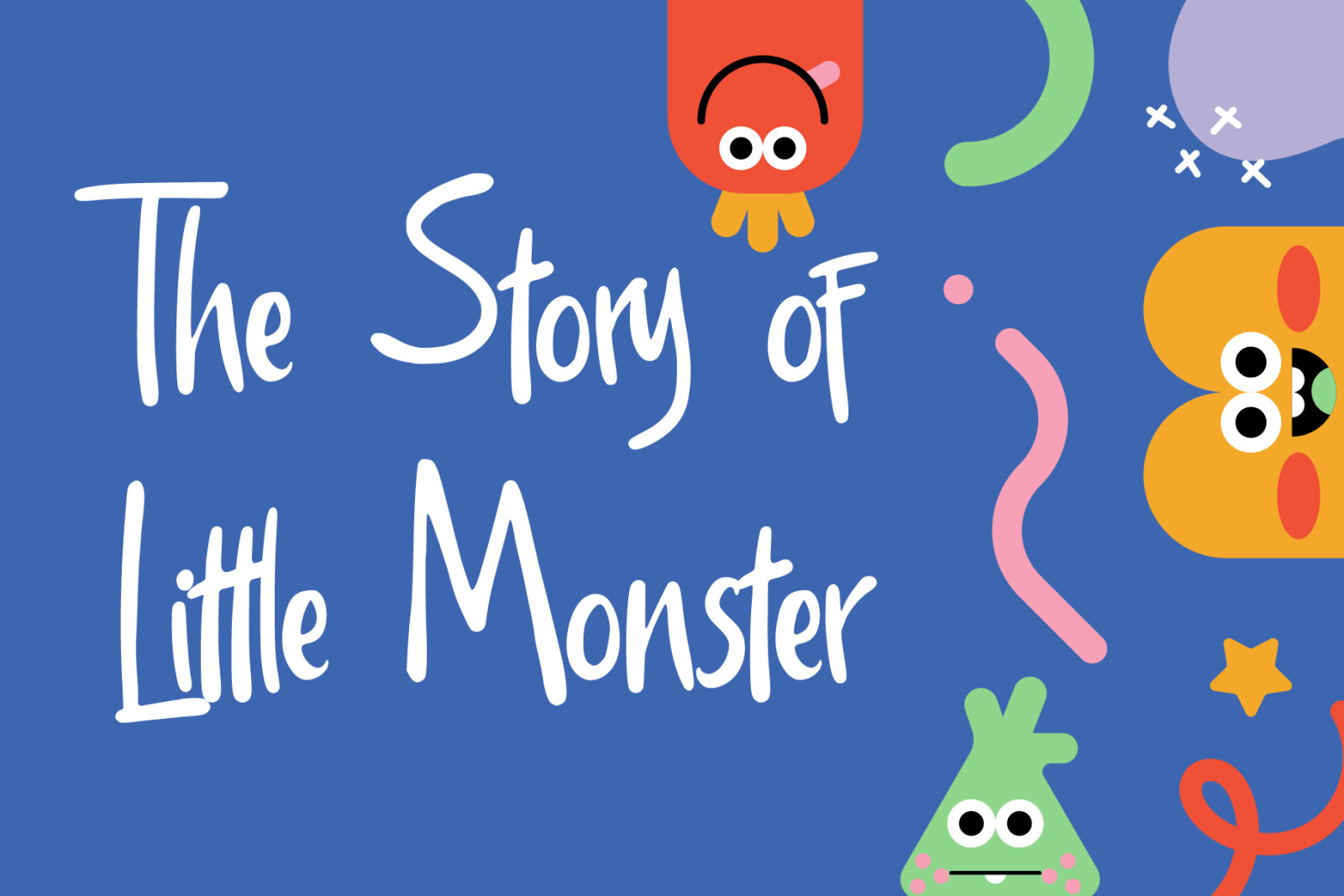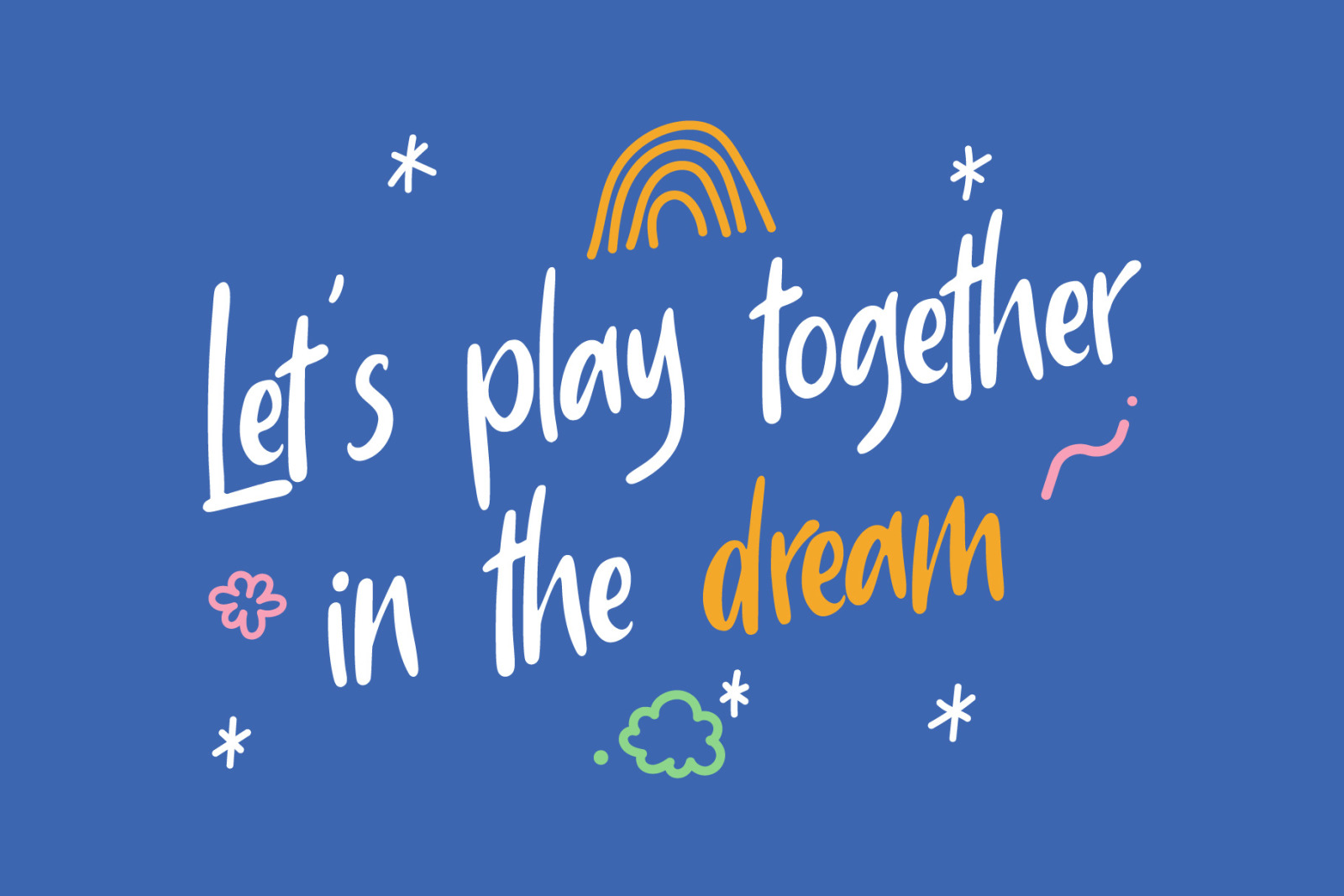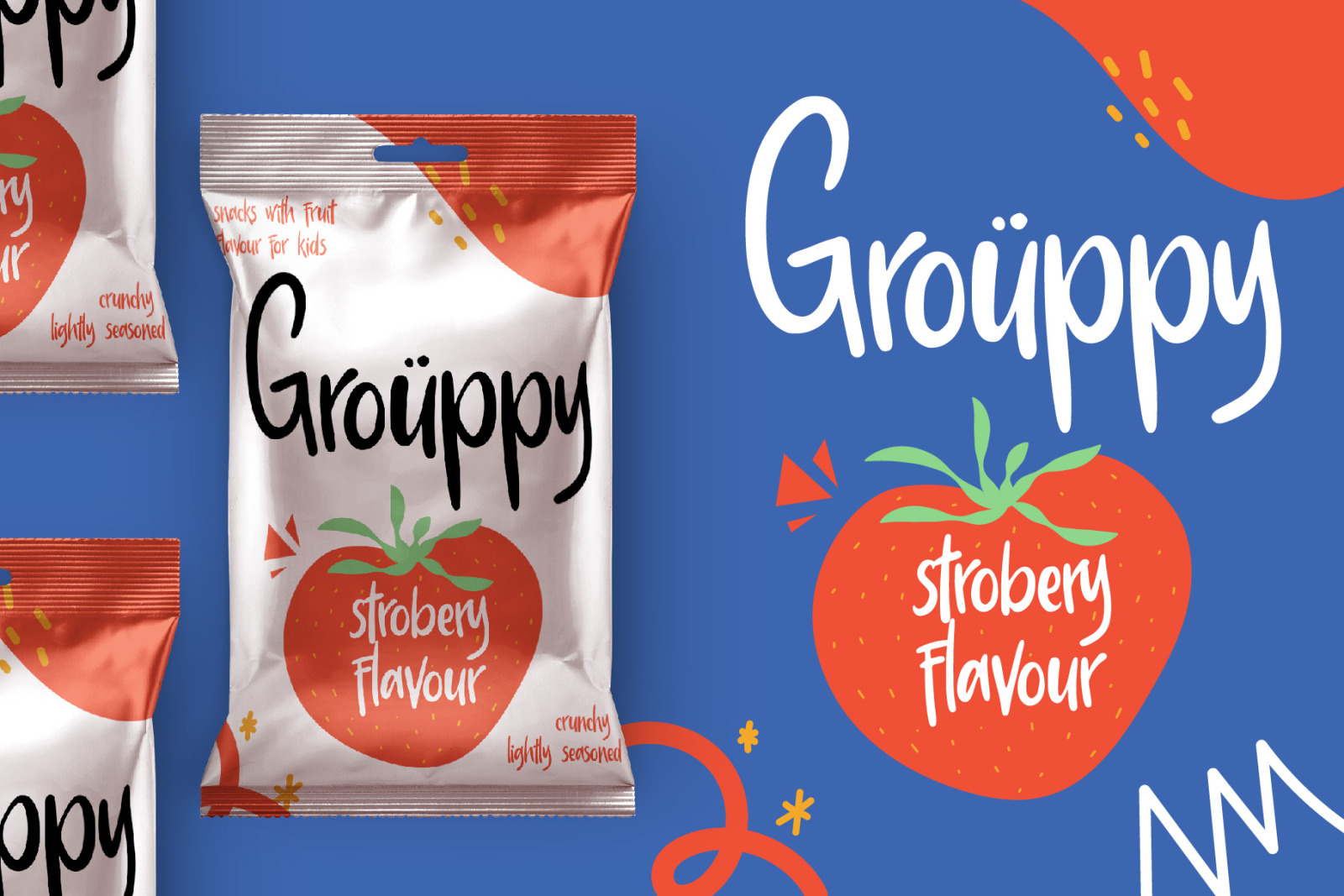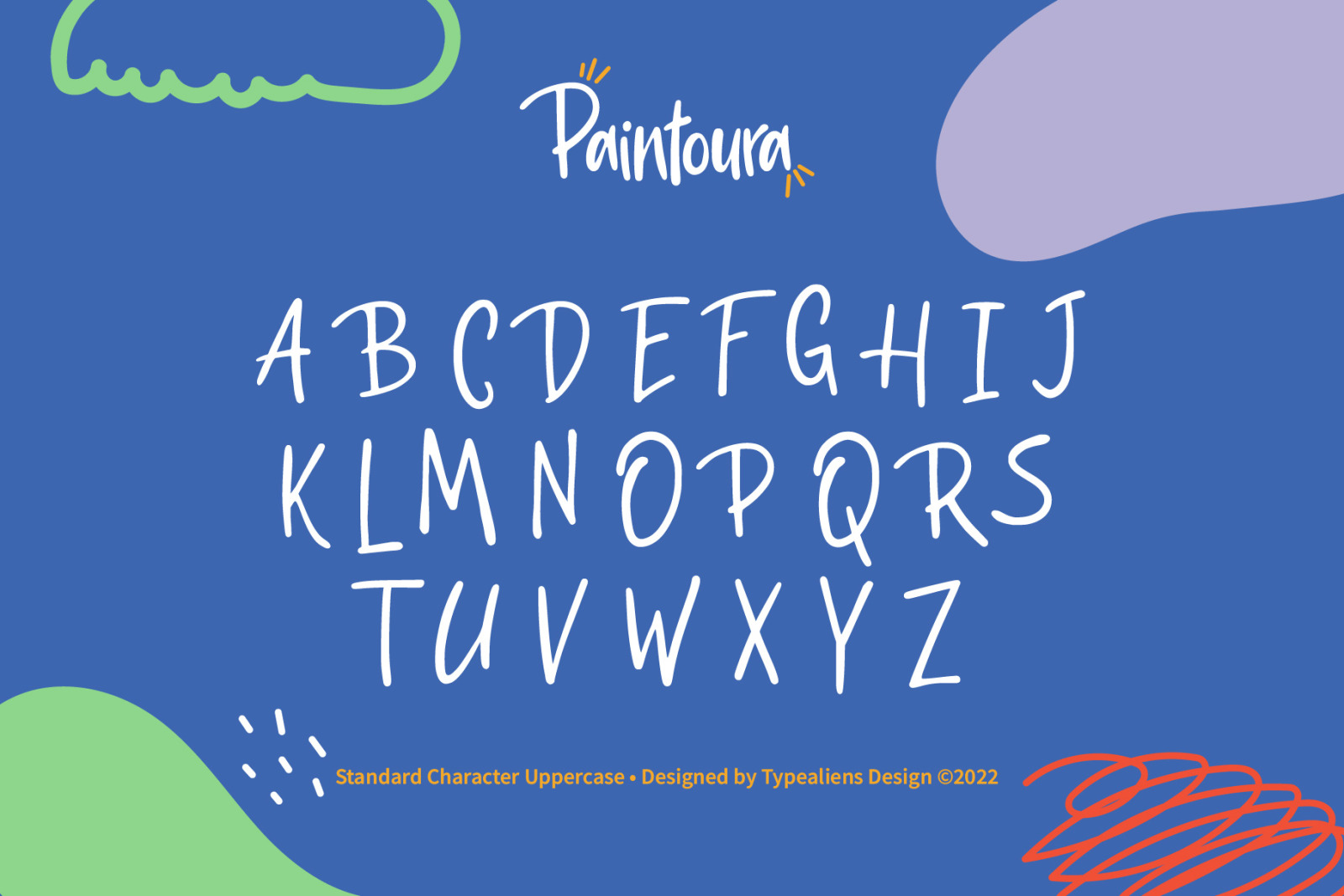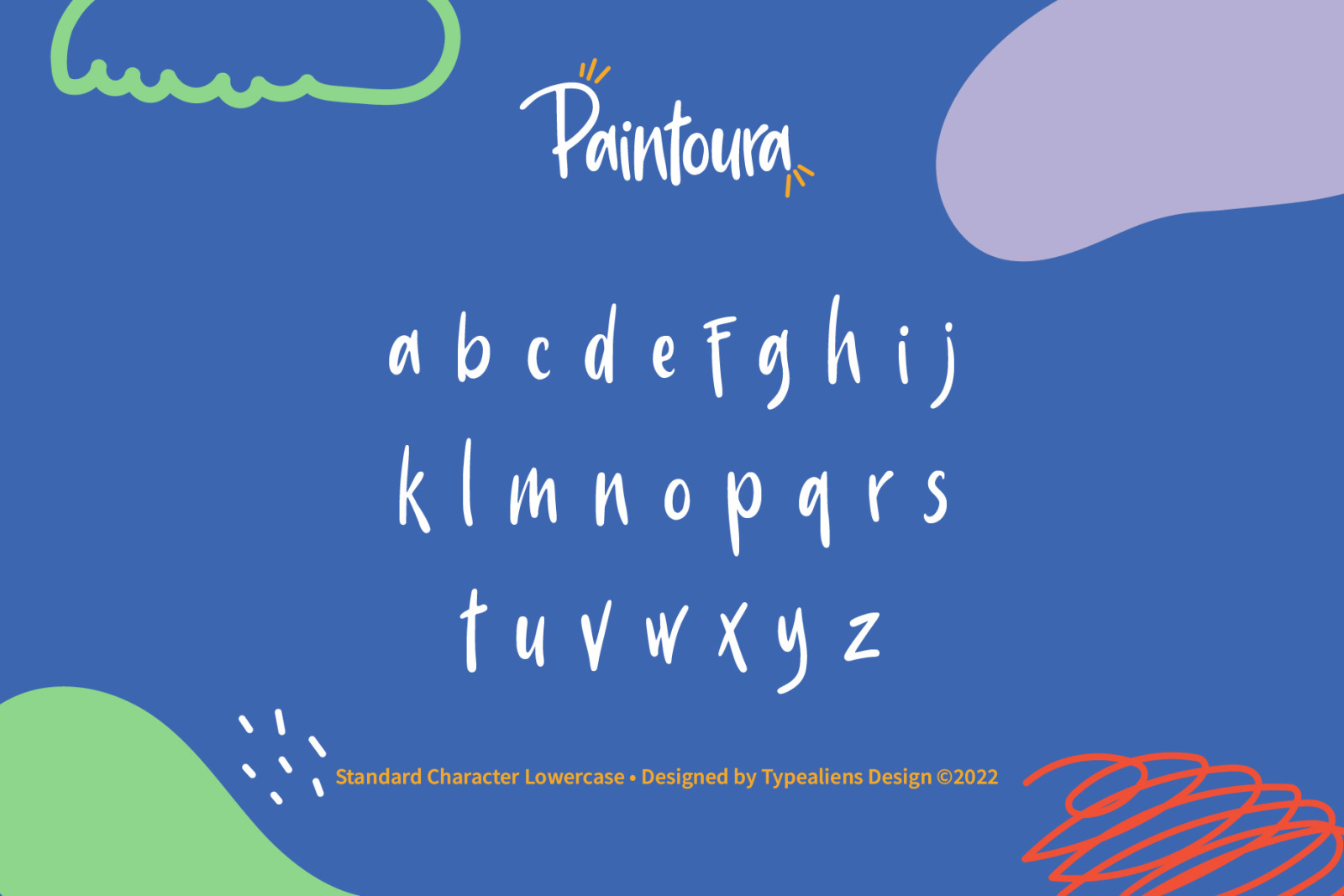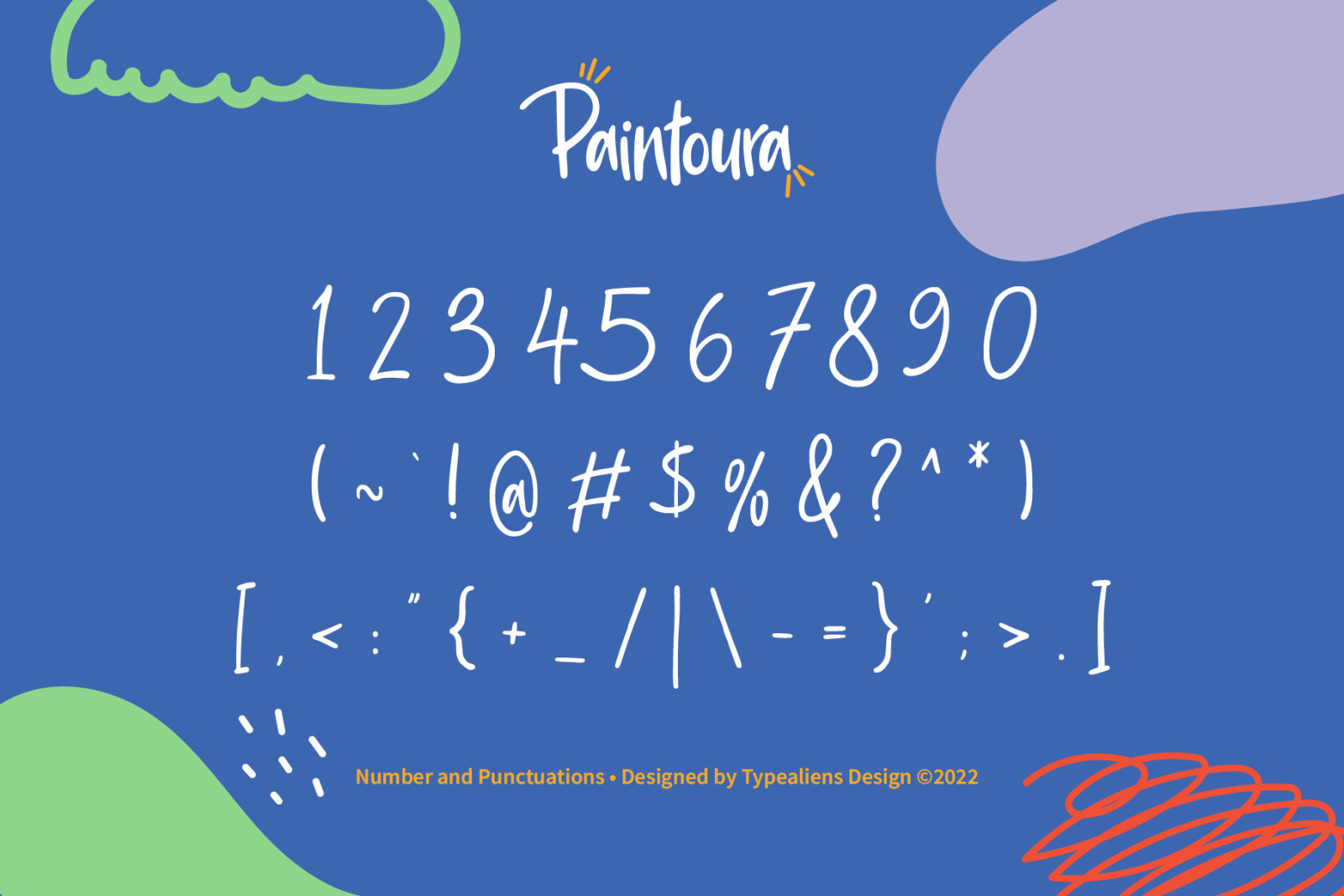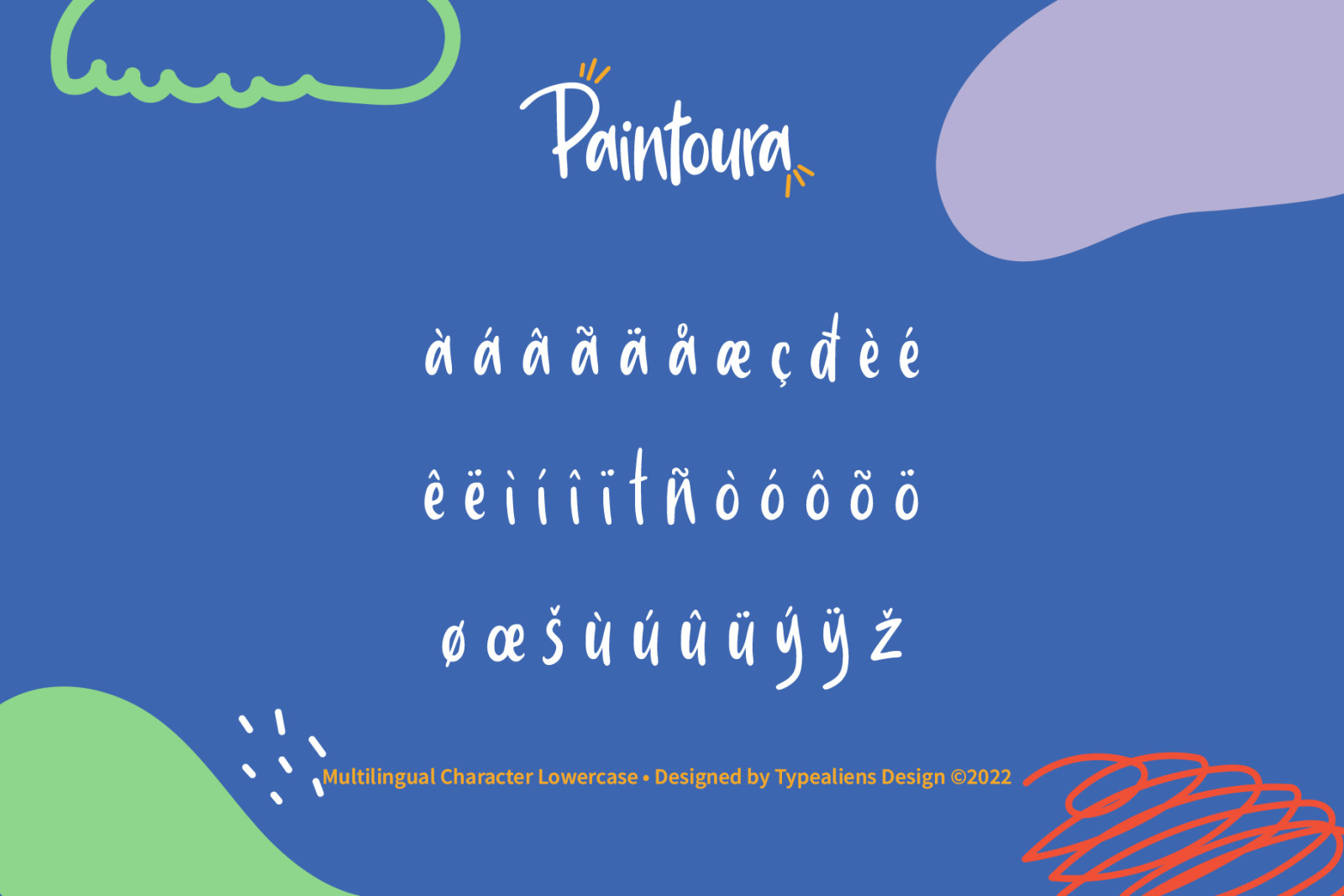
Paintoura Font
PAINTOURA is a relaxed display font, suitable for playful design, branding and social media needs of a brand. Also suitable for supporting food design or snack packaging. With a relaxed style, this font is very flexible to support modern designs, it can also be used for branding designs in fashion.